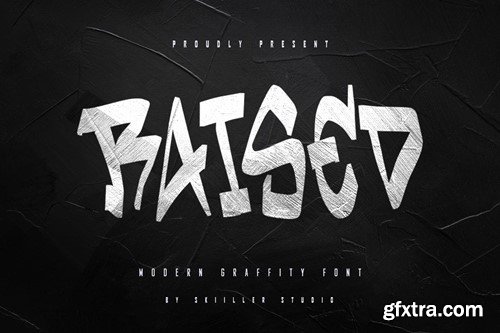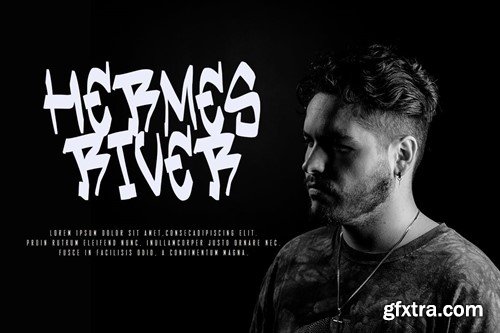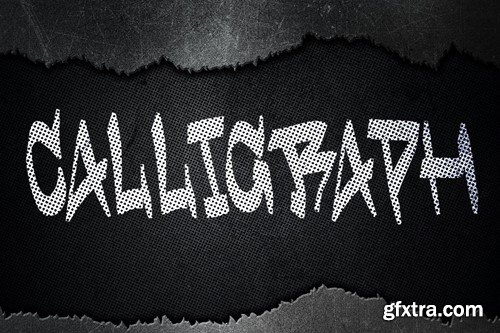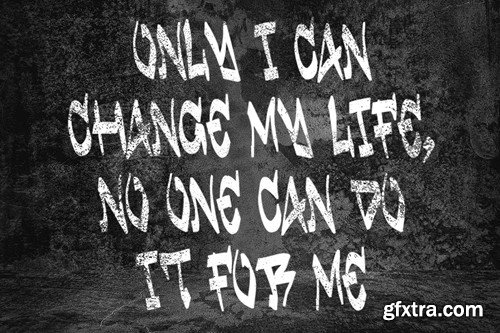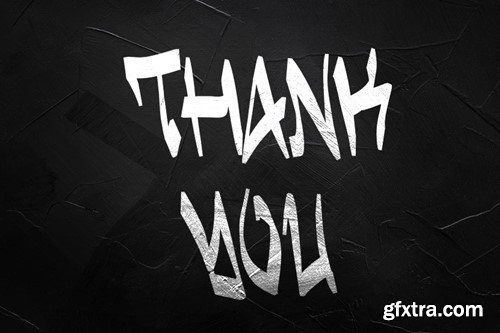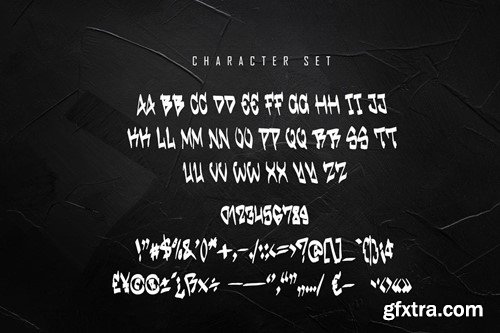
Raised - Graffiti Font
Raised a Graffity font. This font will very suitable for your fun project like children party, cute quotes, or any cute fun related projects. Grab it now !
• Basic Latin Language Support (AÀÁÂÃÄÅCÇDÐEÈÉÊËIÌÍÎÏÑOØÒÓÔÕÖUÙÜÚÛWYÝŸÆß )